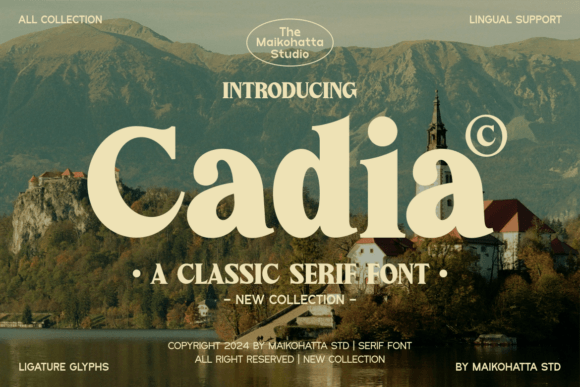
Introducing Cadia: The Modern Serif Font That’s Stealing Hearts
I’ll never forget the struggle I faced while working on a project for a high-end boutique hotel. My client wanted a sophisticated, elegant look, but I was stuck with a bland, generic font that just wouldn’t cut it. The hotel’s branding deserved something more refined, more luxurious. That’s when I stumbled upon a font that changed the game: **Cadia**. This classic serif font has been a revelation, and I’m excited to share its story with you.
Meet Cadia: A Masterclass in Balance and Elegance
Cadia is a modern serif font that boasts a balanced proportion of stroke thickness and fineness, making it a joy to read and a pleasure to look at. Its bold distinction between thick and thin lines provides a touch that’s understated yet unmistakably sophisticated. Whether you’re a designer, crafter, or creative hobbyist, Cadia is sure to become your new go-to font.
What I Love About Cadia ✨
- ✅ Legibility: Cadia’s clear, classic lines make it easy to read, even at small sizes.
- ✅ Versatility: This font works beautifully for both digital and print projects.
- ✅ Elegance: Cadia’s refined features add a touch of sophistication to any design.
- ✅ OpenType Features: Cadia supports a range of OpenType features, including ligatures, stylistic alternates, and glyphs.
- ⚠️ Limited Extras: While Cadia’s core font is excellent, it doesn’t come with a vast array of extras or variations.
- ⚠️ May Require Adjustment: Depending on your design, you might need to tweak Cadia’s tracking or kerning for optimal results.
The Story Behind Cadia: Designer Inspiration
Cadia’s design was inspired by the classic serif fonts of the 19th century, with a modern twist. Its creator aimed to craft a font that would be both elegant and legible, perfect for a wide range of design applications. The result is a font that’s both timeless and contemporary.
| What makes Cadia suitable for both digital and print projects? | Cadia’s clear lines, balanced stroke thickness, and elegant features make it legible and visually appealing in both digital and print formats. |
| Does Cadia support OpenType features? | Yes, Cadia supports a range of OpenType features, including ligatures, stylistic alternates, and glyphs, allowing for greater creative flexibility. |
| Is Cadia suitable for body text? | Absolutely! Cadia’s legibility and elegance make it an excellent choice for body text in both digital and print projects. |